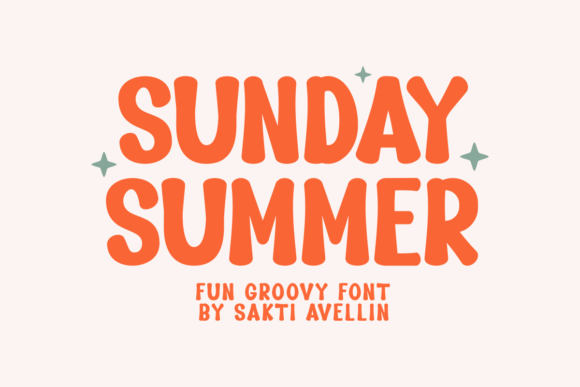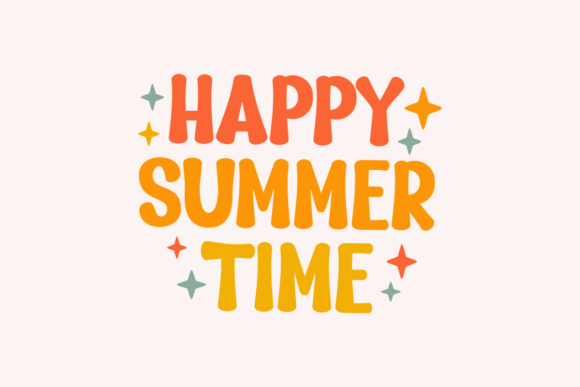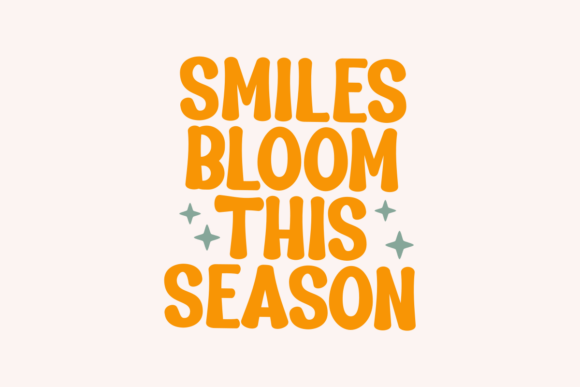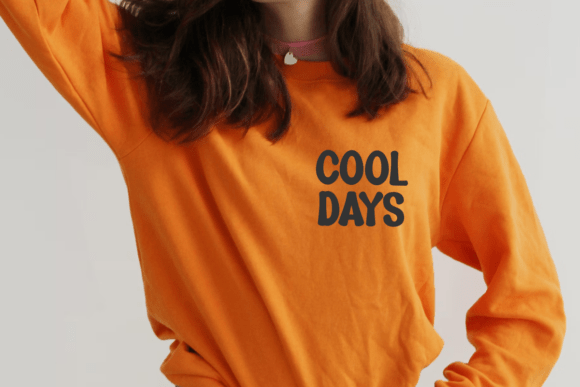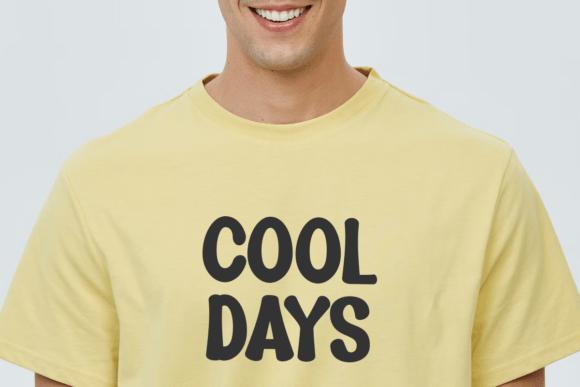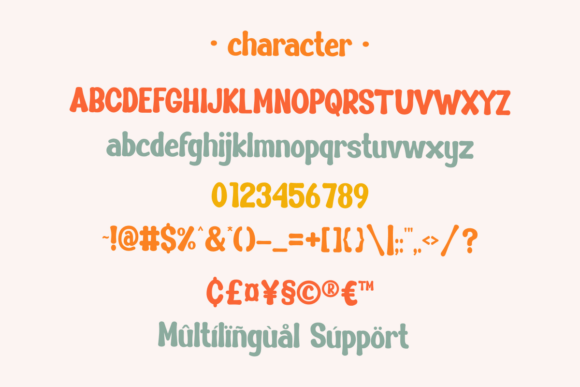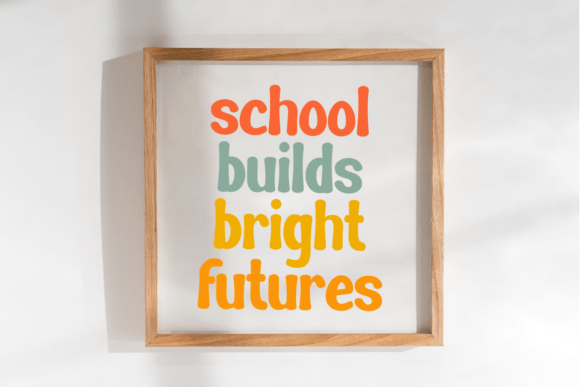
Sunday Summer Font
Immerse yourself in the playful nostalgia of our Sunday Summer font, beautifully handcrafted in a retro style. This versatile font enamors both physical and digital spaces – it’s an effortless fit for stickers, t-shirts, mugs and tote bags. Its vintage allure sings on posters, elevates quotes, charms invitation cards, and adds a whimsical touch to wall décor and key chains. Get creative with Sunday Summer, a font that’s not just letters but a reflection of fun-filled past summers and joyful moments.